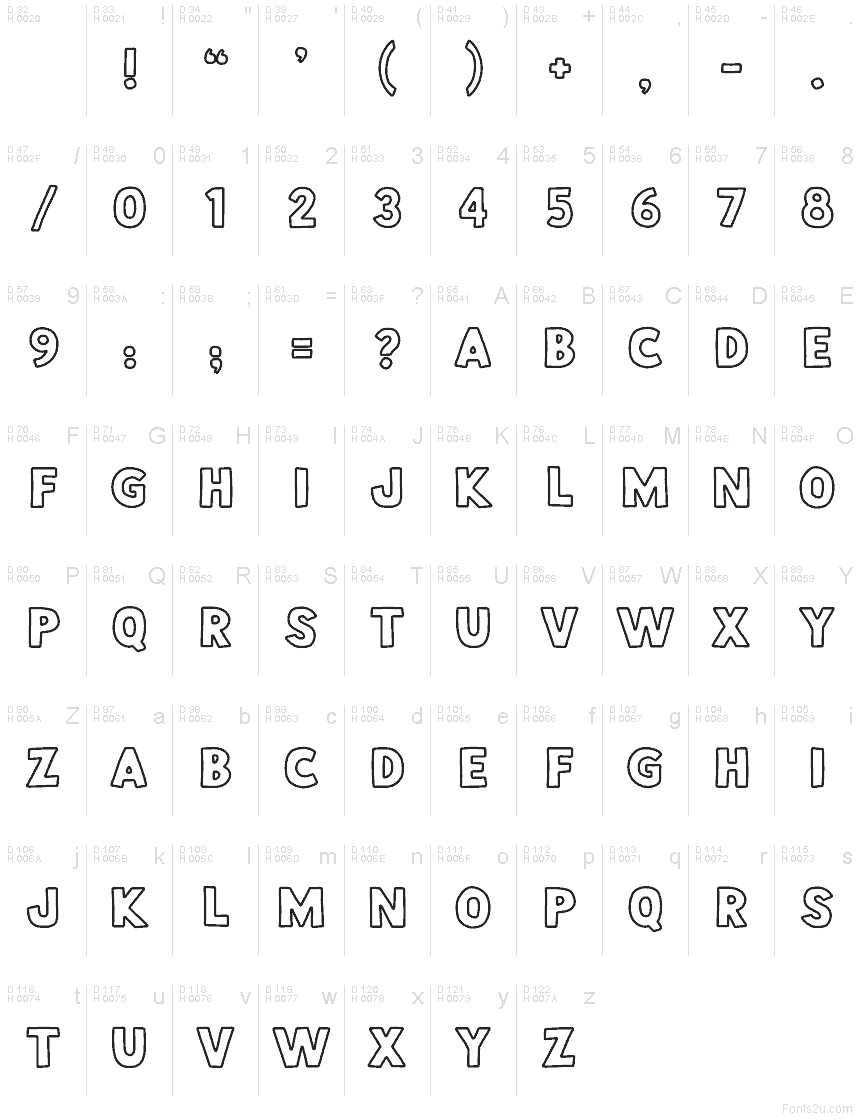
Handron Solid Stroke
Handron Solid Stroke font by Mark L is a free cartoon outlined display typeface with a bold, inky outline wrapped around chunky, soft-edged letters. The Handron family’s signature look is all about that confident black stroke that feels hand-drawn yet tidy, like marker lettering traced twice. It has a friendly, bouncy rhythm that stays legible even when crammed into tight spaces or blown up on a huge banner, so your message always lands with a playful punch.
Using Handron Solid Stroke, this free font shines on kids’ posters, classroom printables, comic panels, game titles, stickers, YouTube thumbnails, and fun product packaging. The outlined structure naturally grabs attention without needing extra graphics, saving time in busy layouts. For a simple pairing, combine Handron Solid Stroke for headlines with a clean rounded sans serif for body text, and keep Handron big and bold so that lively outline can really do its job.